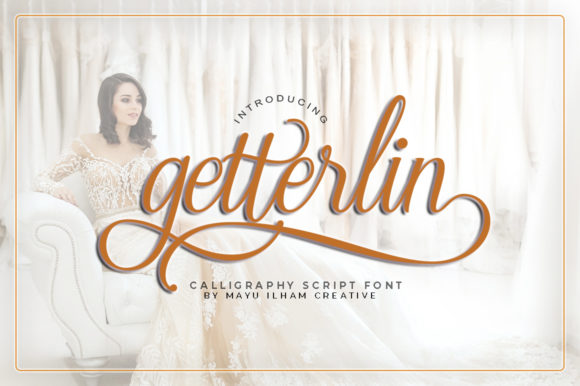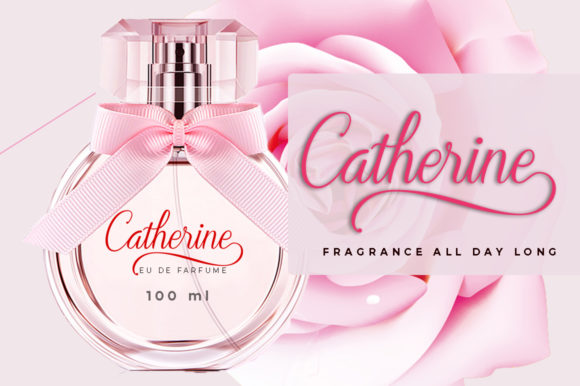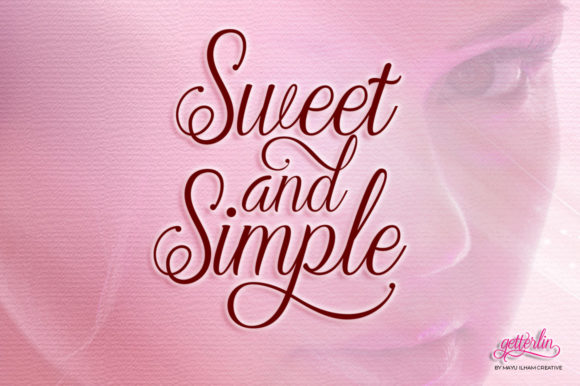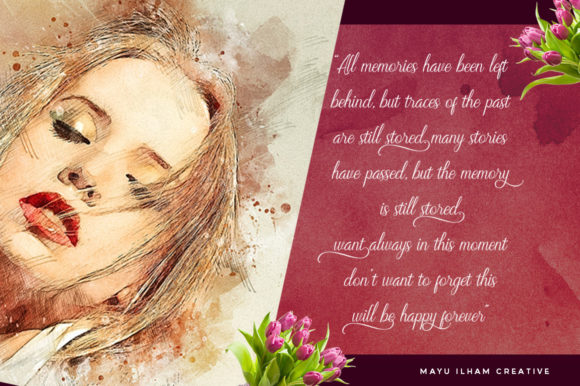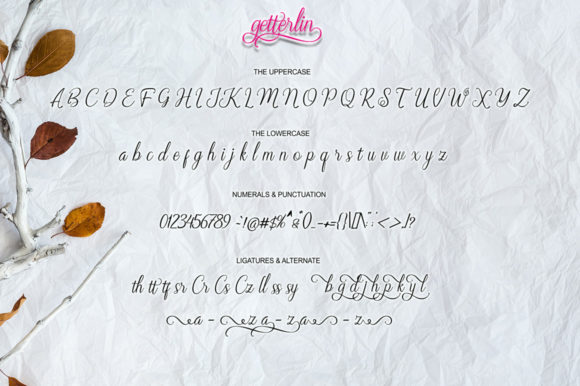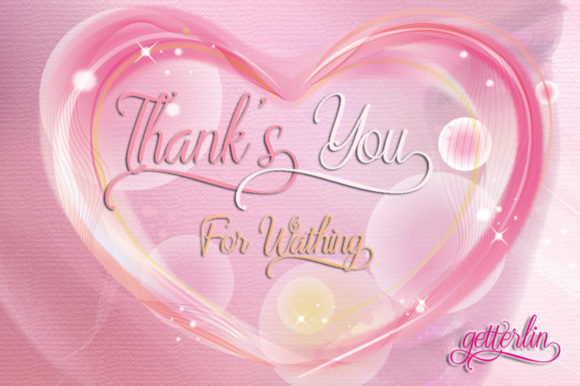
Getterlin Font
About Getterlin Font
The Getterlin is a modern calligraphy font. It has a varied baseline and is perfect for adding a classic and elegant look to your designs.
It can be used for titles, signatures, logos, wedding invitations, t-shirts, letterheads, signboards, labels, news, posters, badges, and much more!